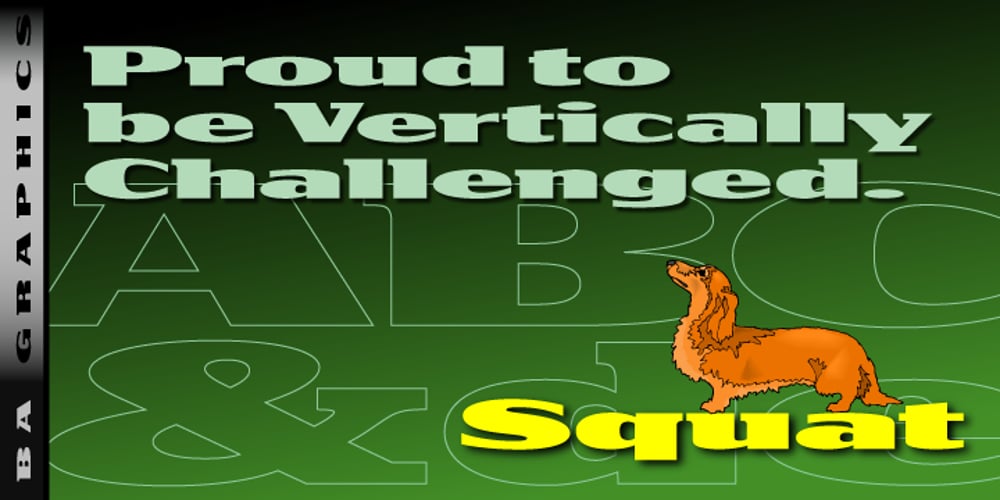
Squat
Squat font
Squat Font Family was designed by Bob Alonso, John Bomparte and published by BA Graphics. Squat contains 1 styles and family package options. Squat may be vertically challenged but hey, even the vertically challenged need love too! And you know what? Squat is worth much more than Diddley Squat! It gets the tough jobs done in half the vertical space with its sturdy, low profile. Randy Newman may not care for it, but Squat shows that short fonts got plenty of reason to live! So there.